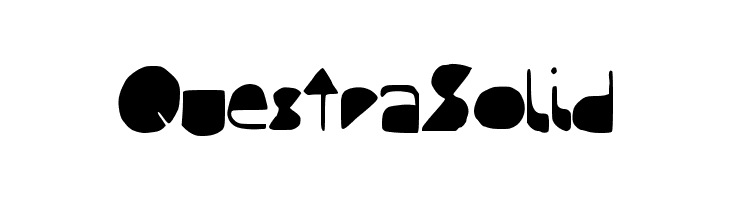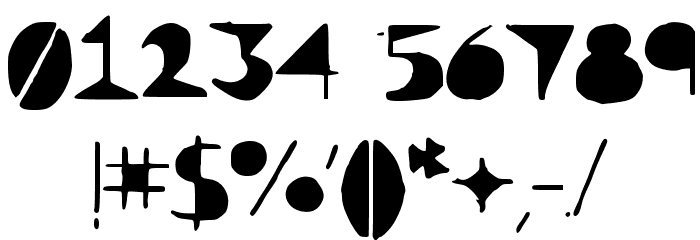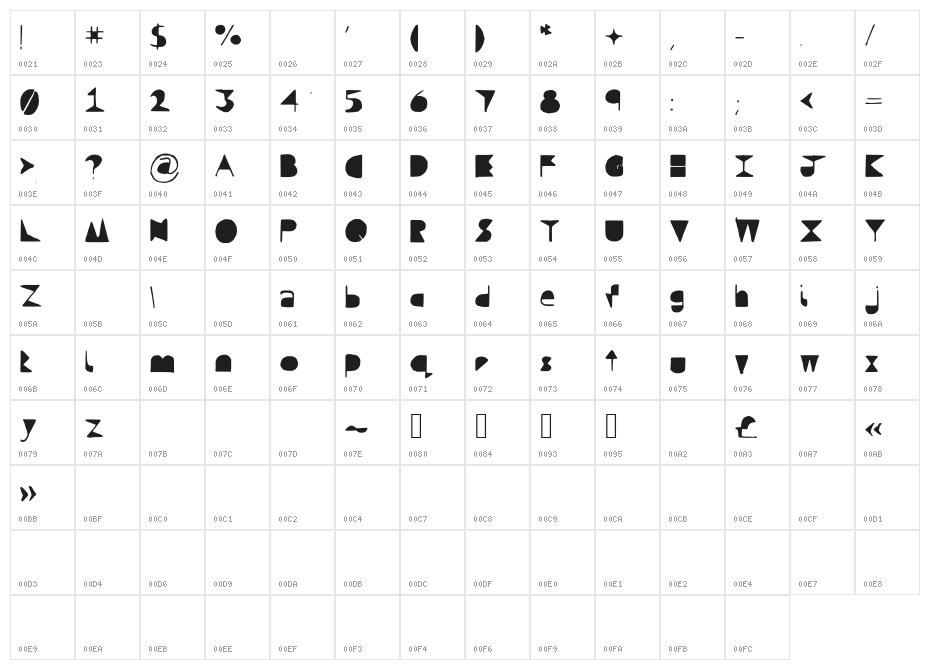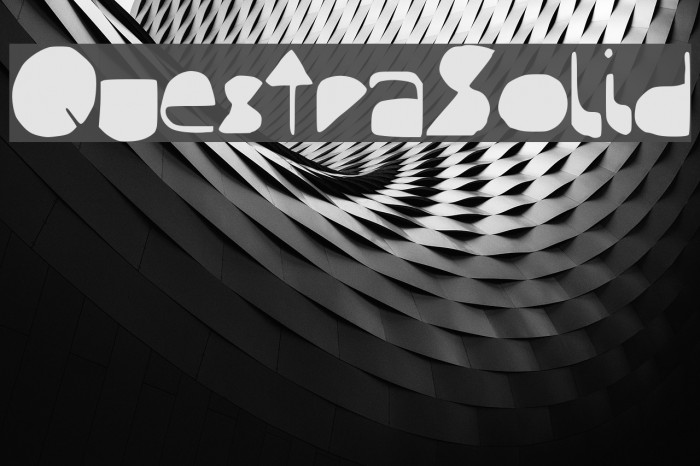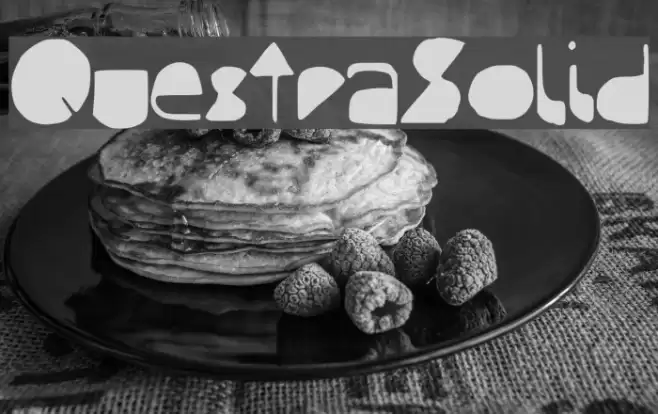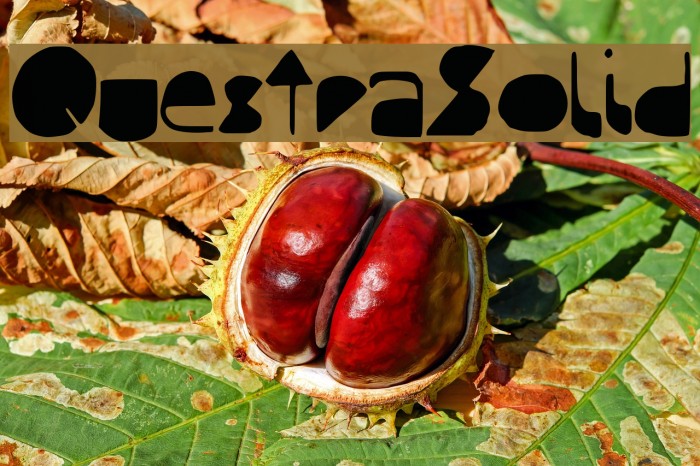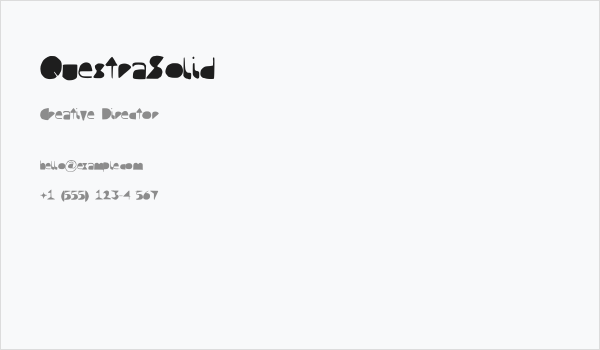
QuestraSolid Font
QuestraSolid Description
This font features a bold and geometric design with a modern twist. The characters are constructed with thick, solid strokes and unique cut-out shapes that create a striking visual impact. The uppercase letters have a strong presence with angular and sharp edges, while the lowercase letters maintain a consistent style with a slightly softer appearance. Numbers and special characters follow the same bold and geometric theme, making them easily recognizable. The overall design is highly decorative, making it suitable for eye-catching headlines or artistic projects.
Zoe Kierce
| Proposed Projects | Ideal for branding, posters, album covers, and any project requiring a bold, artistic statement. |